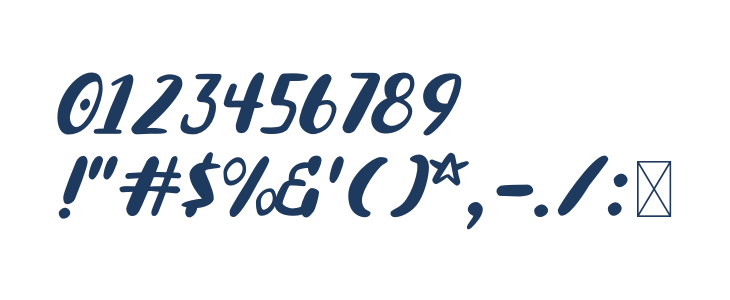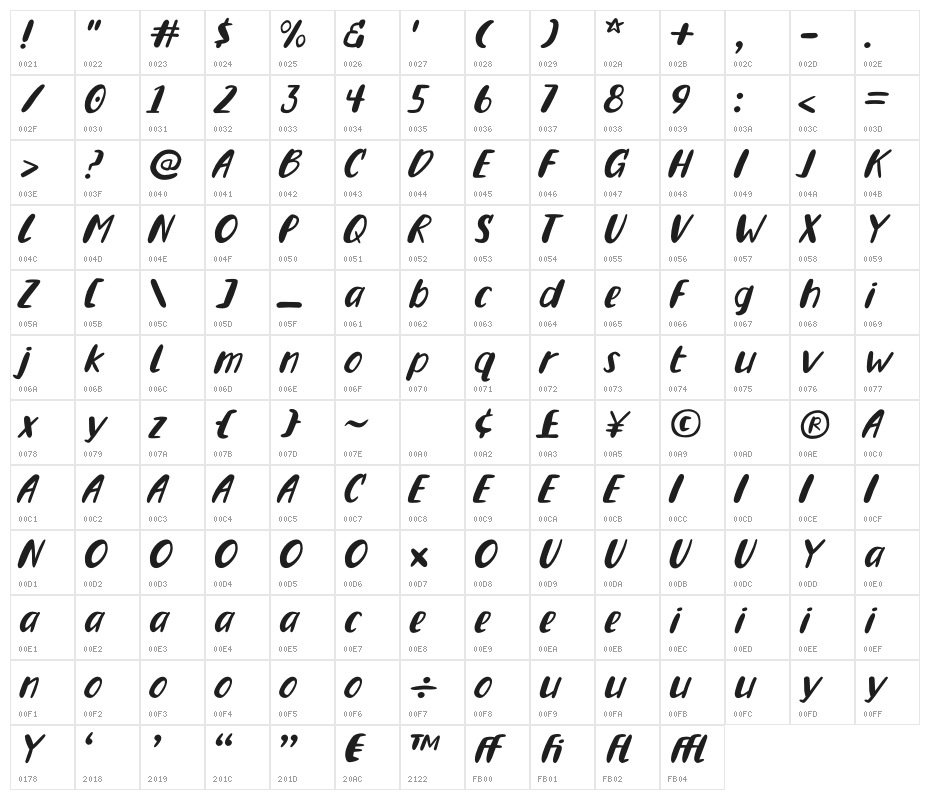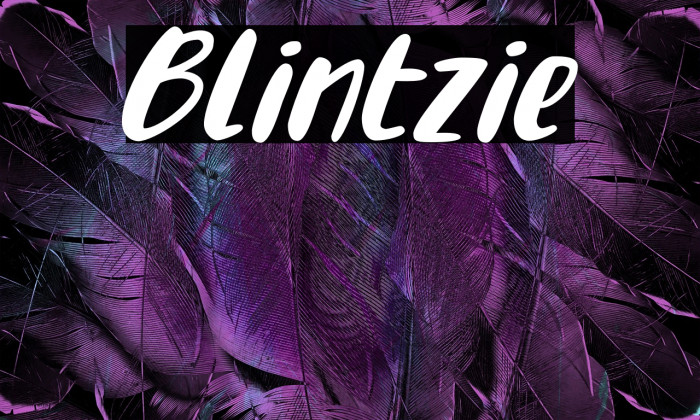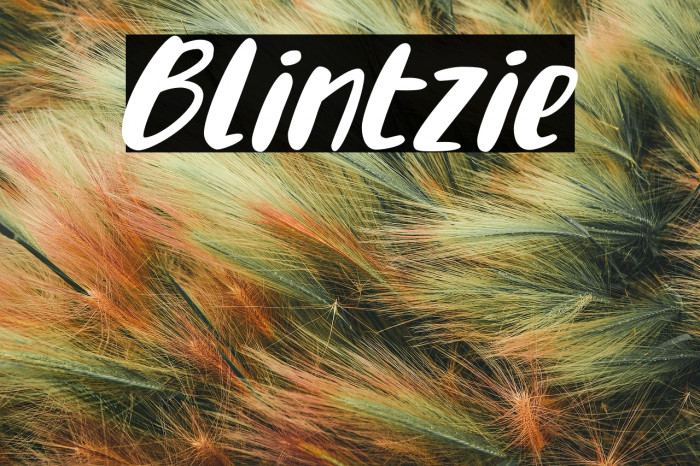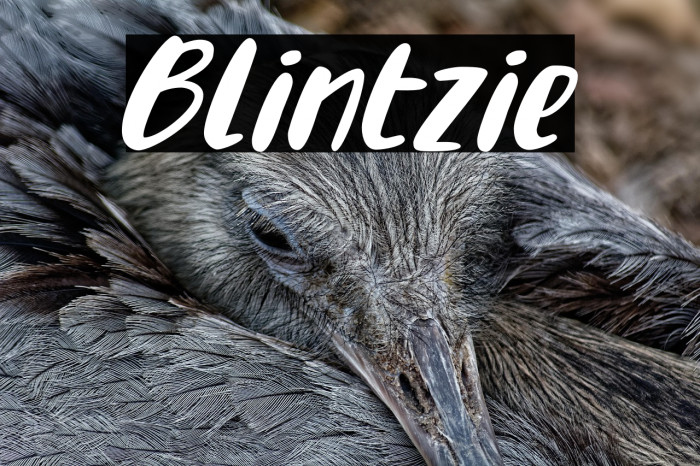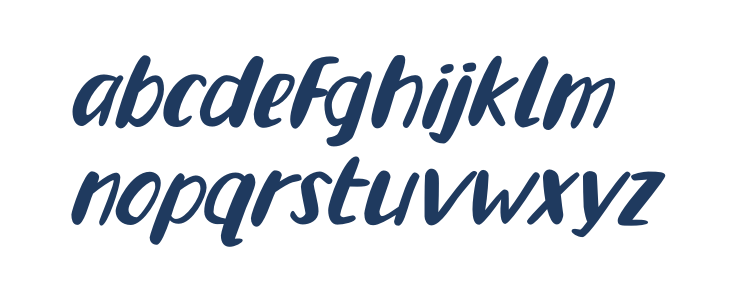
Blintzie Font
Blintzie Description
This font features a bold and dynamic script style with a handwritten appearance. The letters are slightly slanted, giving a sense of motion and fluidity. The strokes are thick and consistent, providing a strong visual impact. The uppercase and lowercase letters are well-balanced, with rounded edges that soften the overall look. Numbers and special characters maintain the same energetic style, making them cohesive with the alphabet. This font is ideal for projects that require a personal touch or a sense of creativity.
| Proposed Projects | Ideal for branding, invitations, greeting cards, and creative projects that require a personal touch. |